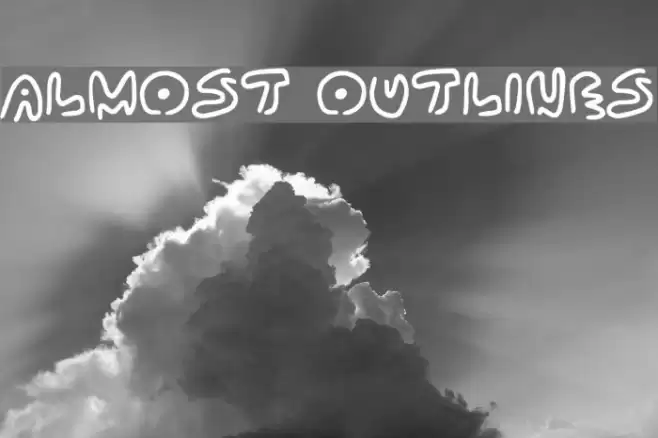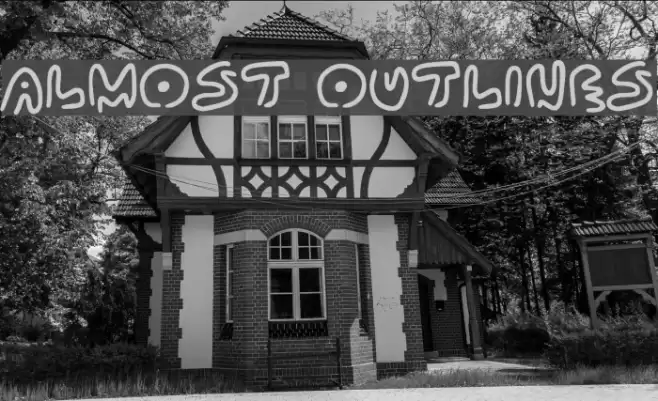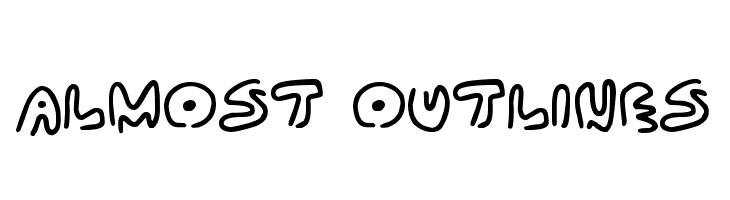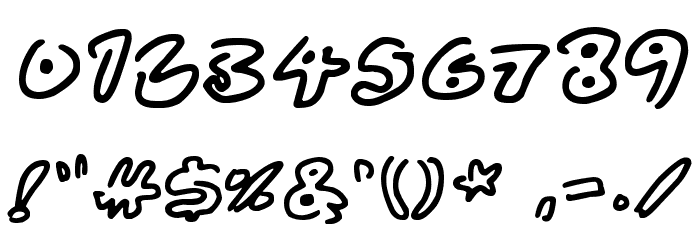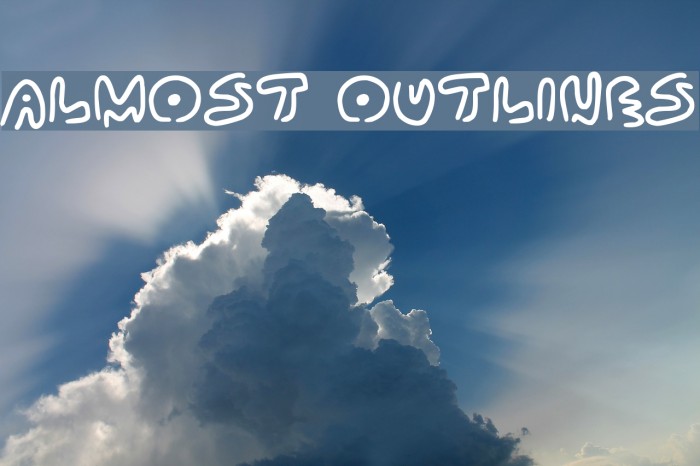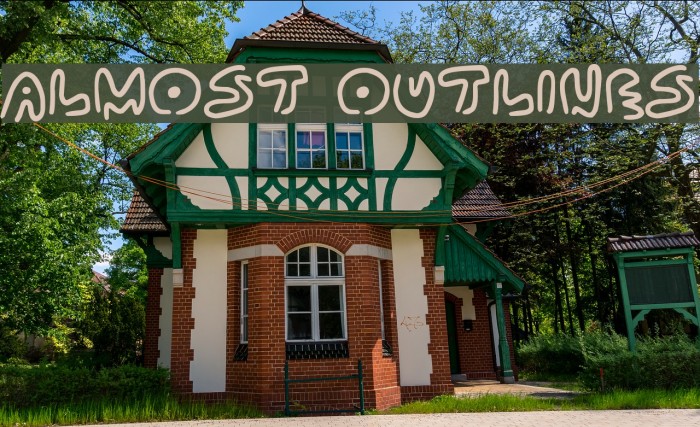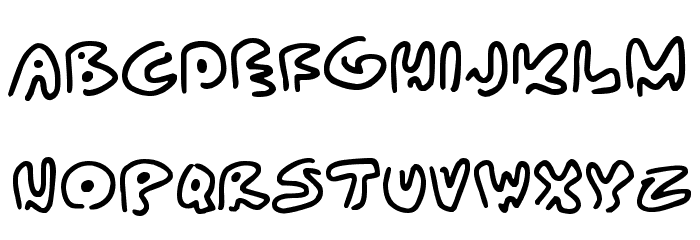
Almost Outlines Font
Almost Outlines Description
This playful and bold font features a unique outline style that gives each character a lively and dynamic appearance. The letters are crafted with a thick, consistent stroke that forms an almost cartoonish outline, creating a sense of movement and energy. The uppercase and lowercase letters maintain a uniform style, with rounded edges and a slightly irregular shape that adds to the whimsical feel. Numbers and special characters follow the same design principles, ensuring a cohesive look across all elements. This font is perfect for projects that require a fun and informal touch, such as children's books, comic strips, or playful branding.
A playful, bold outline font with a cartoonish and dynamic style from Cartoon fonts.
- Proposed Projects: Ideal for children's books, comic strips, playful branding, and informal designs.
- Overall Style: Playful, Cartoonish, Dynamic
- Use Case: Headlines, Logos, Informal Text